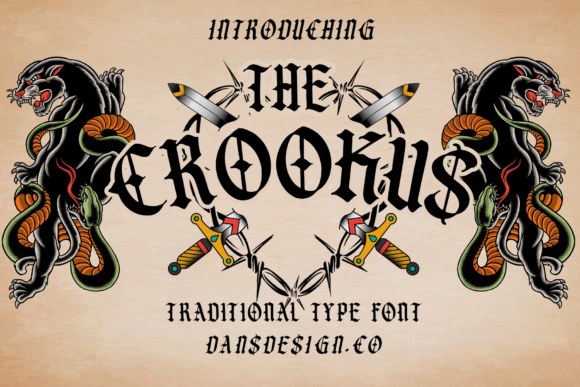
The Crookus Font: A Cool and Imposing Blackletter Font
The Crookus font is a stunning blackletter font that can add a touch of elegance and sophistication to any design project. Its unique and imposing style makes it a wonderful asset to your font library, regardless of the topic or theme. In this article, we’ll explore the features and benefits of The Crookus font, and discuss how it can enhance your creations.
Key Features of The Crookus Font
- Blackletter Style: The Crookus font is a traditional blackletter font with intricate and ornate lettering.
- Cool and Imposing: The font has a cool and imposing presence that can add a touch of drama to any design.
- High-Quality Design: The font is designed with high-quality craftsmanship, ensuring that every letter and detail is meticulously crafted.
- Versatile: The Crookus font can be used for a wide range of design projects, from logos and branding to headings and titles.
Benefits of Using The Crookus Font
The Crookus font offers a range of benefits that make it an excellent addition to your font library. Some of the benefits include:
- Enhances Readability: The font’s unique style and clear lettering make it easy to read, even at small sizes.
- Creates Visual Interest: The Crookus font’s intricate details and ornate lettering create visual interest and can add a touch of elegance to any design.
- Versatile and Adaptable: The font can be used for a wide range of design projects, from formal and traditional to modern and edgy.
- Supports Multiple Languages: The Crookus font supports multiple languages, making it a great choice for designers who work with international clients.
Use Cases for The Crookus Font
The Crookus font is a versatile font that can be used for a wide range of design projects. Some examples of use cases include:
- Logos and Branding: The font’s unique and imposing style makes it a great choice for logos and branding projects.
- Headings and Titles: The Crookus font is perfect for headings and titles, adding a touch of elegance and sophistication to any design.
- Advertising and Marketing: The font’s bold and attention-grabbing style makes it a great choice for advertising and marketing materials.
- Packaging and Labeling: The Crookus font can be used for packaging and labeling projects, adding a touch of elegance and sophistication to any product.
Pairing The Crookus Font with Other Fonts
Pairing The Crookus font with other fonts can create a unique and visually appealing design. Some font pairing suggestions include:
- Serif Fonts: Pairing The Crookus font with serif fonts like Times New Roman or Garamond can create a classic and elegant look.
- Sans-Serif Fonts: Pairing The Crookus font with sans-serif fonts like Arial or Helvetica can create a modern and edgy look.
- Script Fonts: Pairing The Crookus font with script fonts like Lobster or Pacifico can create a elegant and sophisticated look.
The Crookus font is a stunning blackletter font that can add a touch of elegance and sophistication to any design project. Its unique and imposing style makes it a wonderful asset to your font library, regardless of the topic or theme. With its high-quality design, versatility, and range of benefits, The Crookus font is a great choice for designers who want to create visually appealing and effective designs.